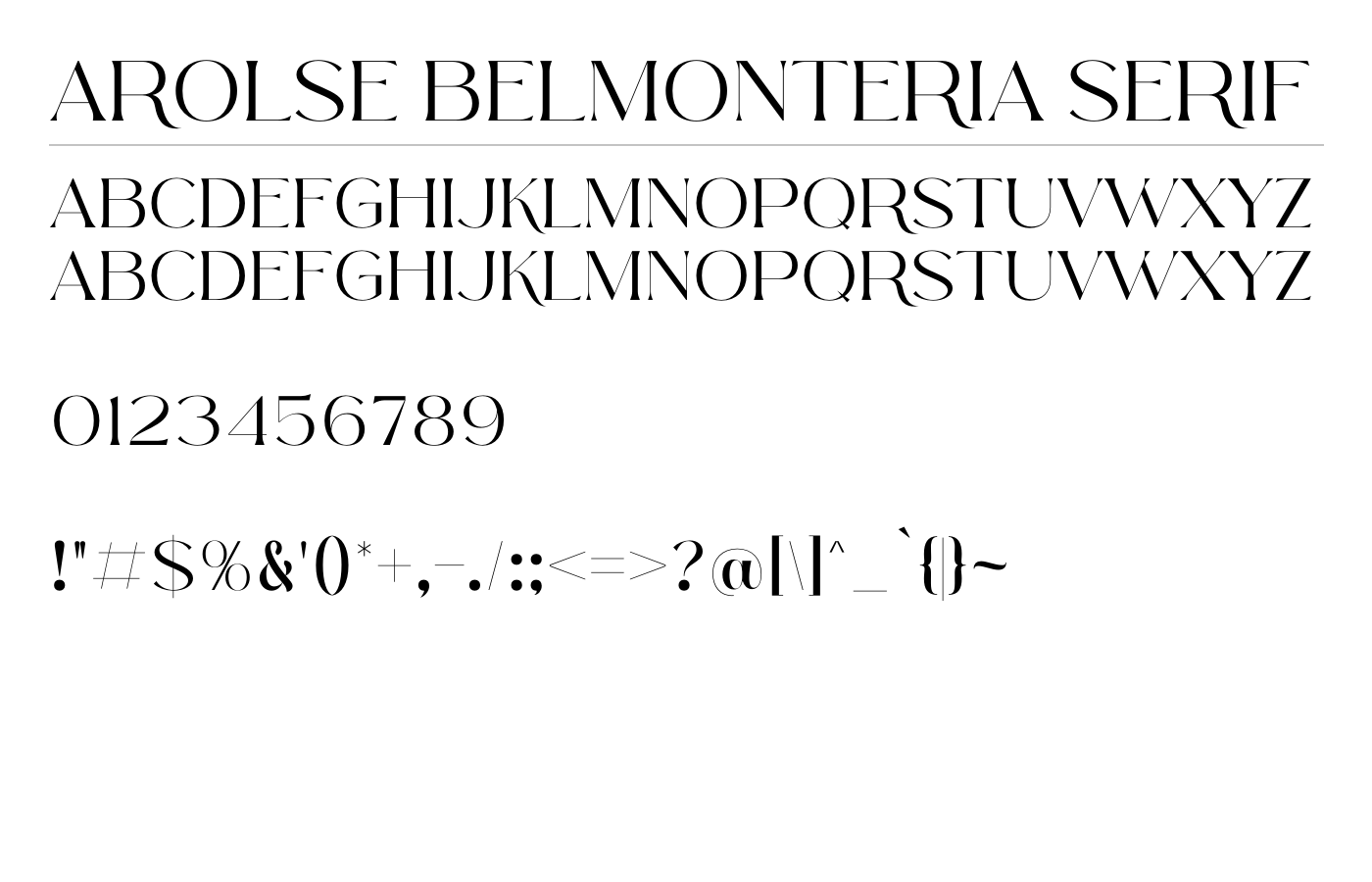
Arolse Belmonteria Serif is an elegant, high-contrast serif font with refined, thin serifs and delicate stroke variation, giving it a sophisticated and luxurious feel. Its tall, narrow letterforms and sharp details make it ideal for upscale branding, fashion, and editorial headlines where a stylish, modern touch is desired. This font works best in display settings that call for a graceful and chic aesthetic.
Arolse Belmonteria Serif Font
About Arolse Belmonteria Serif Font